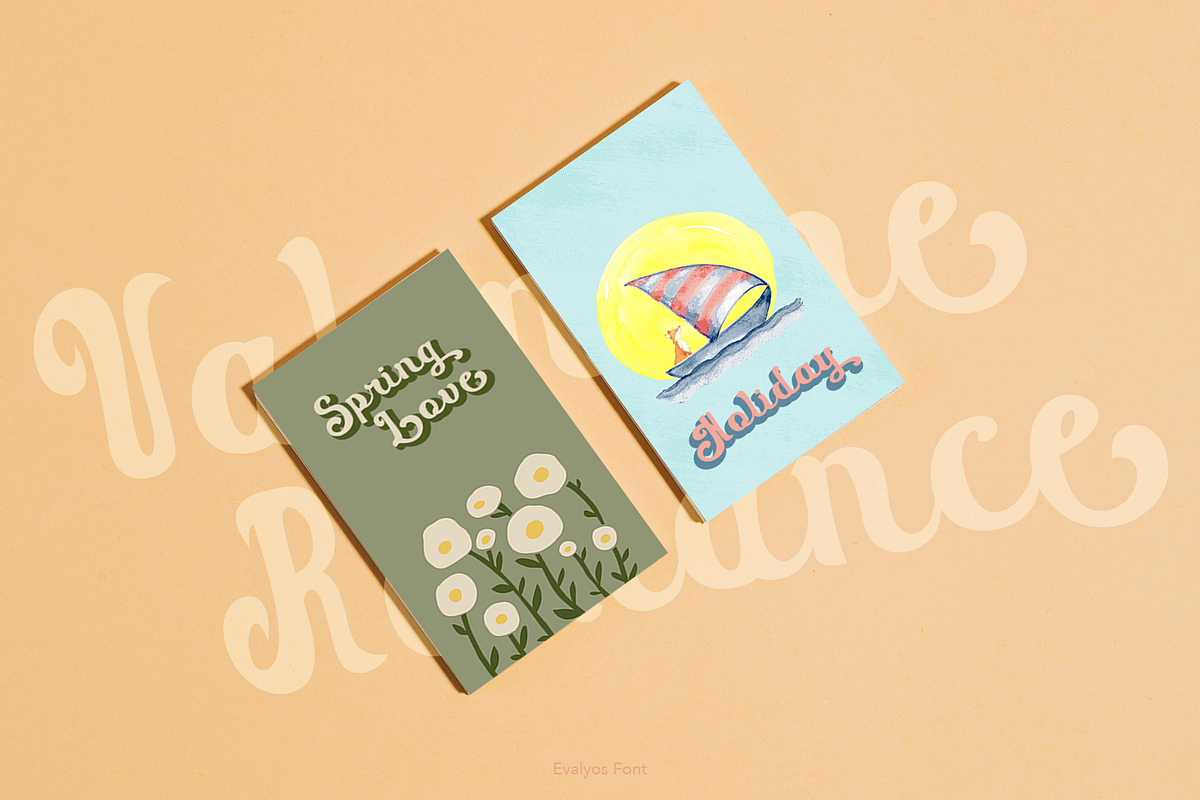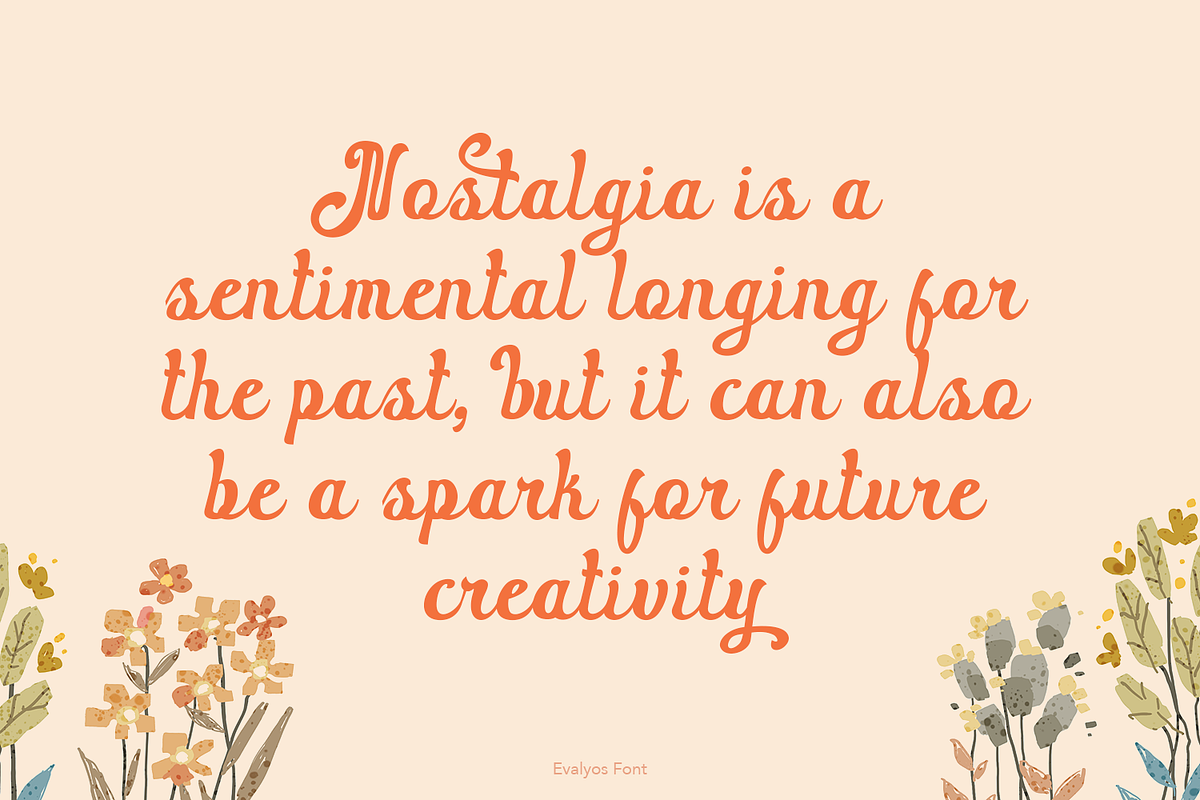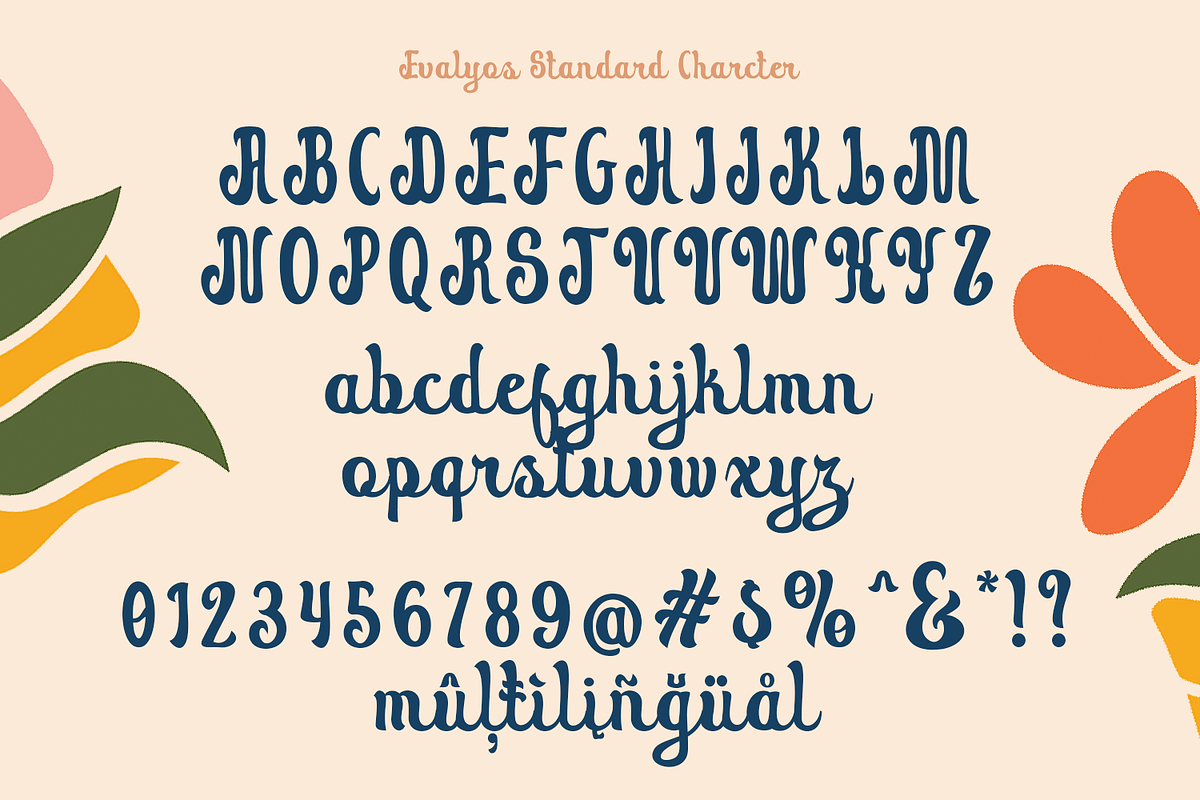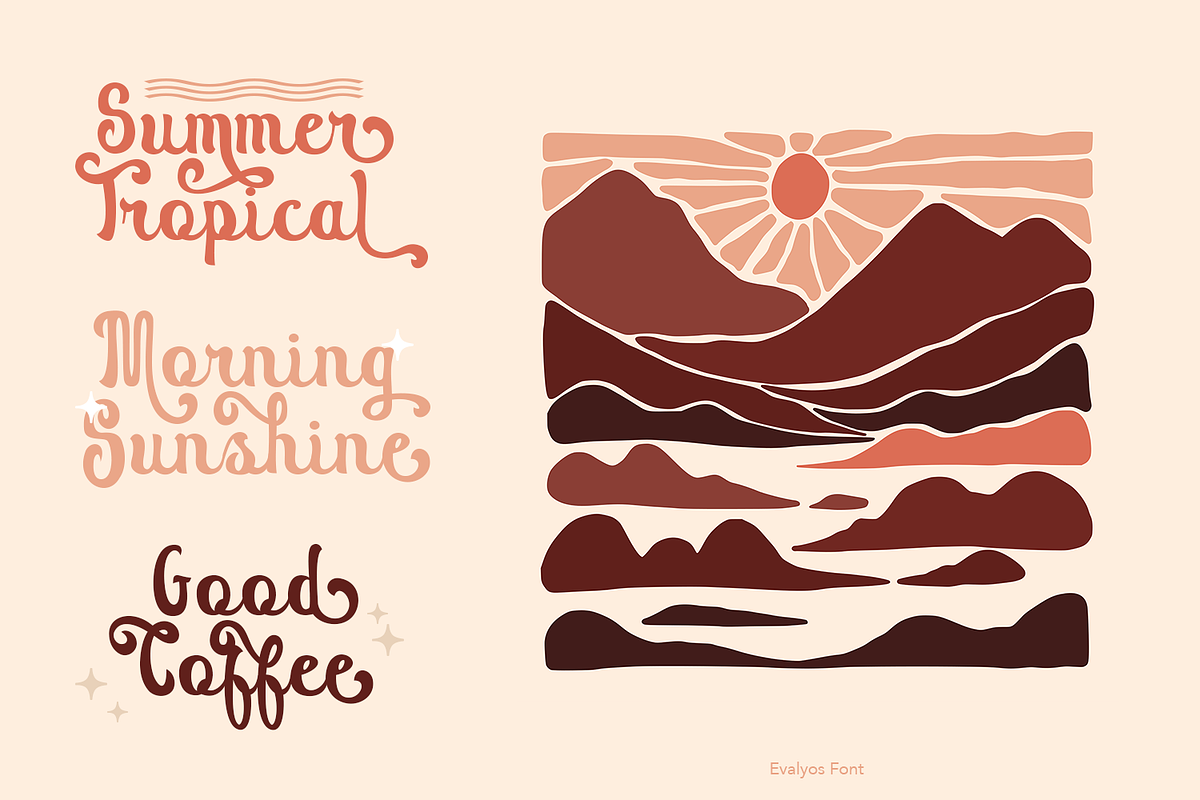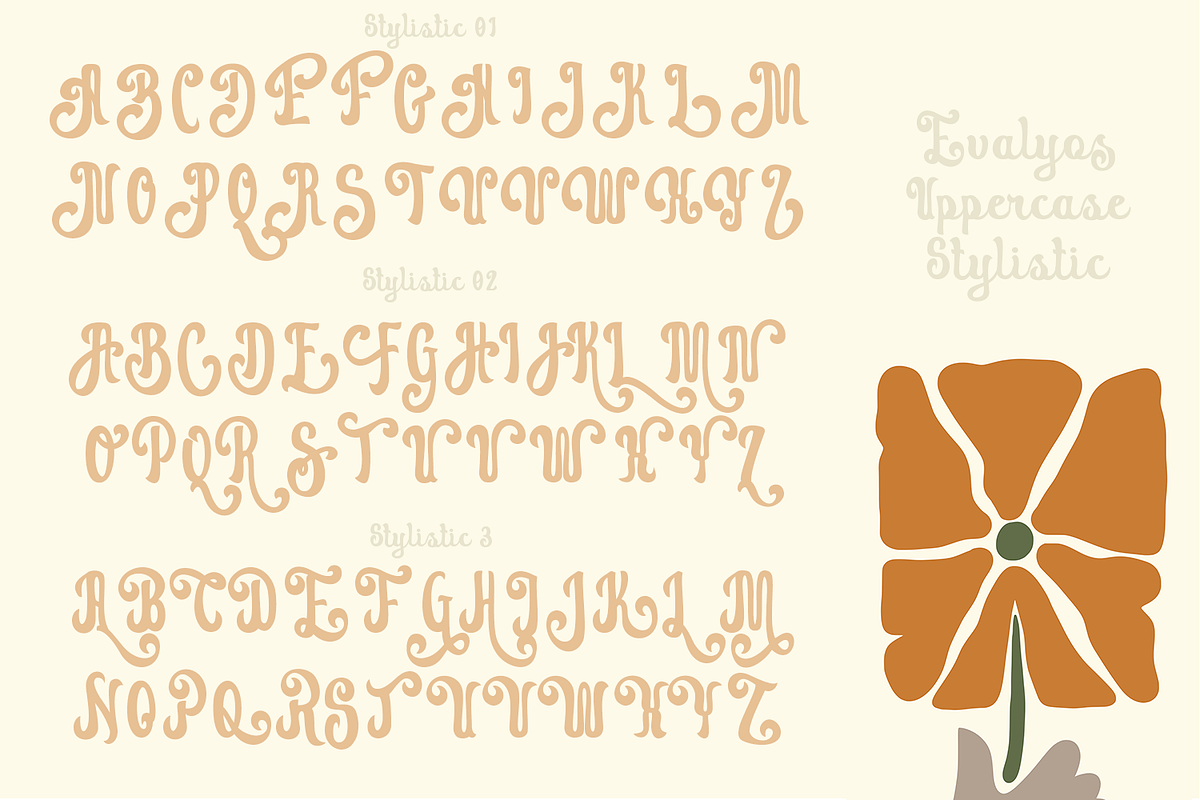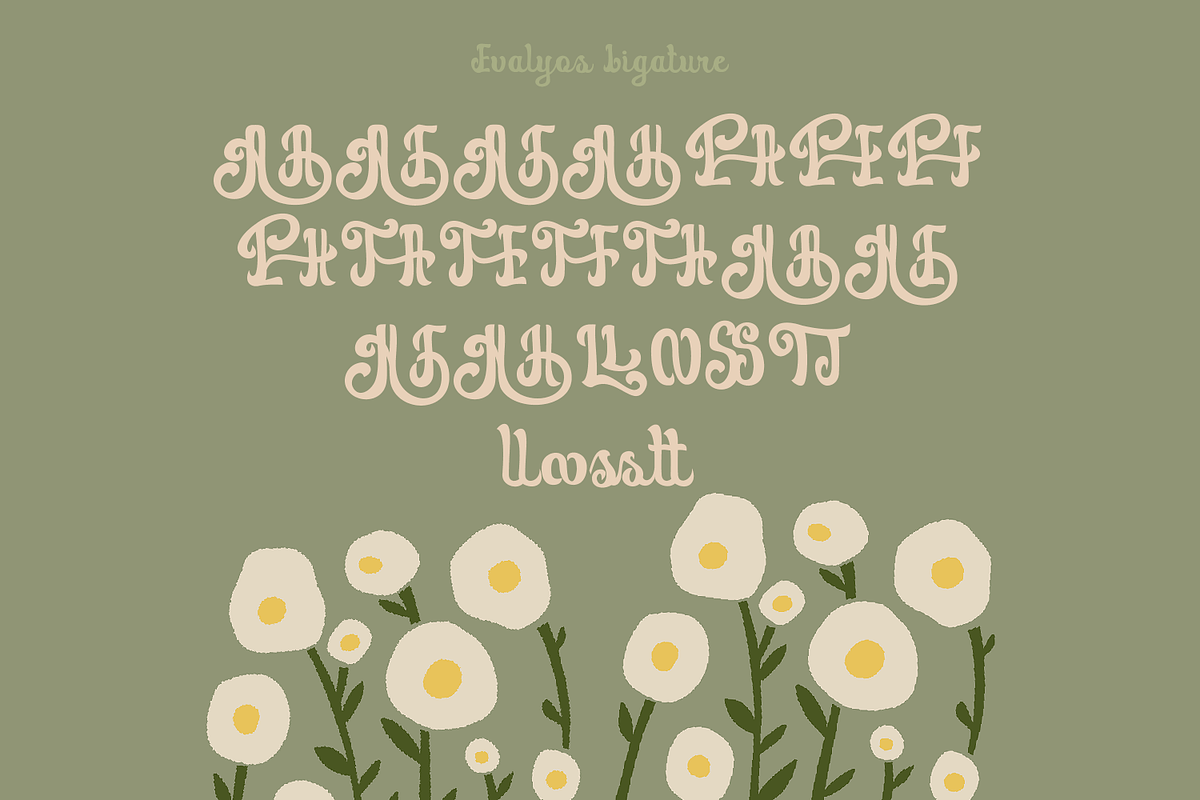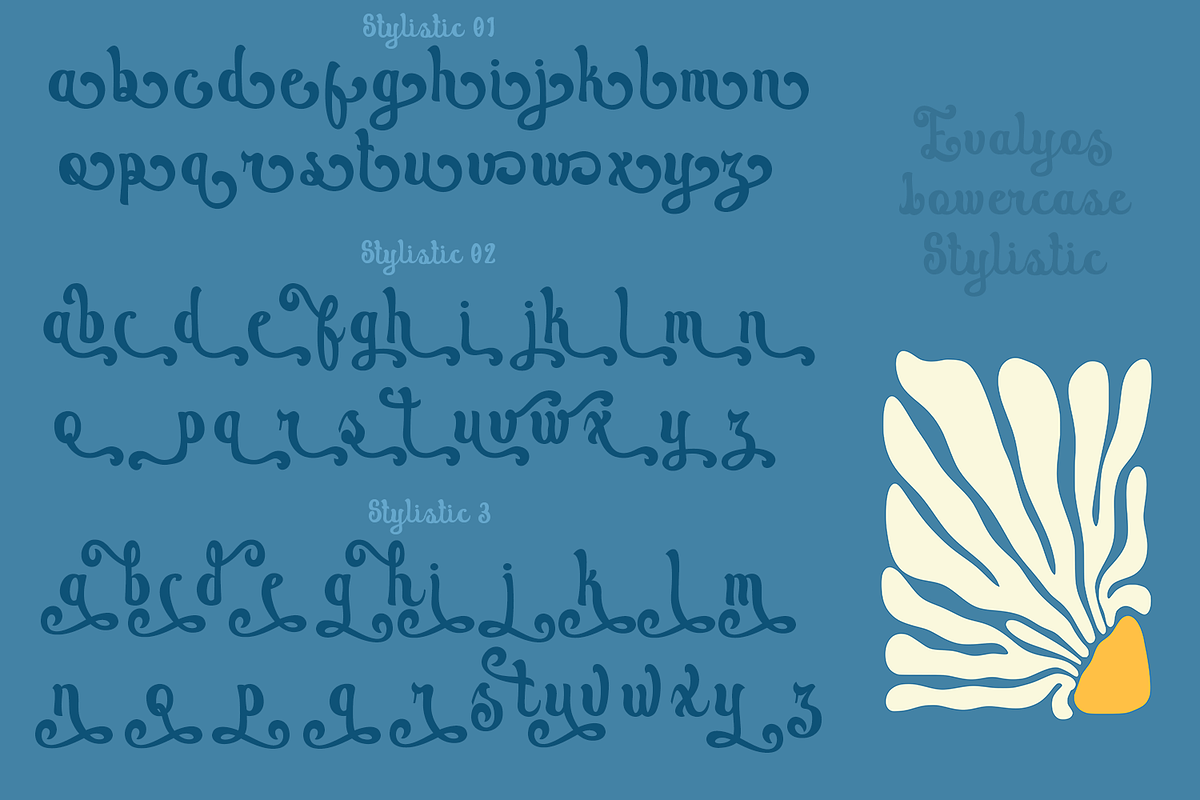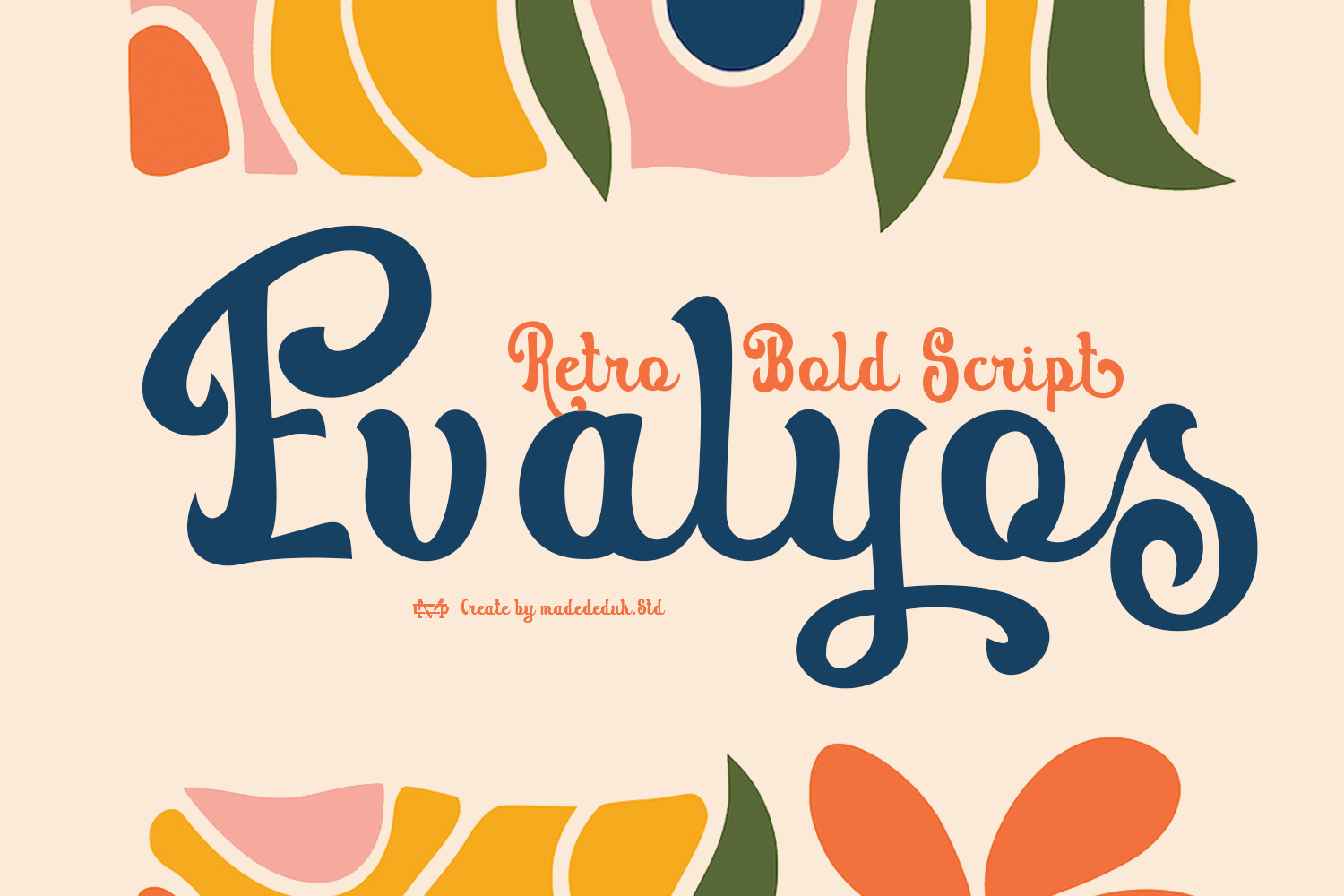
Evalyos Retro Font
Introducing Evalyos is a retro script that creates a formal and elegant impression, helping text appear bold yet classy as they often use bold serifs for a classic look. This font fits perfectly in logos, contemporary posters, album, wedding invitation, fashion, branding and lifestyle driven branding. Whether you’re creating digital content or printed materials.
- International Glyphs